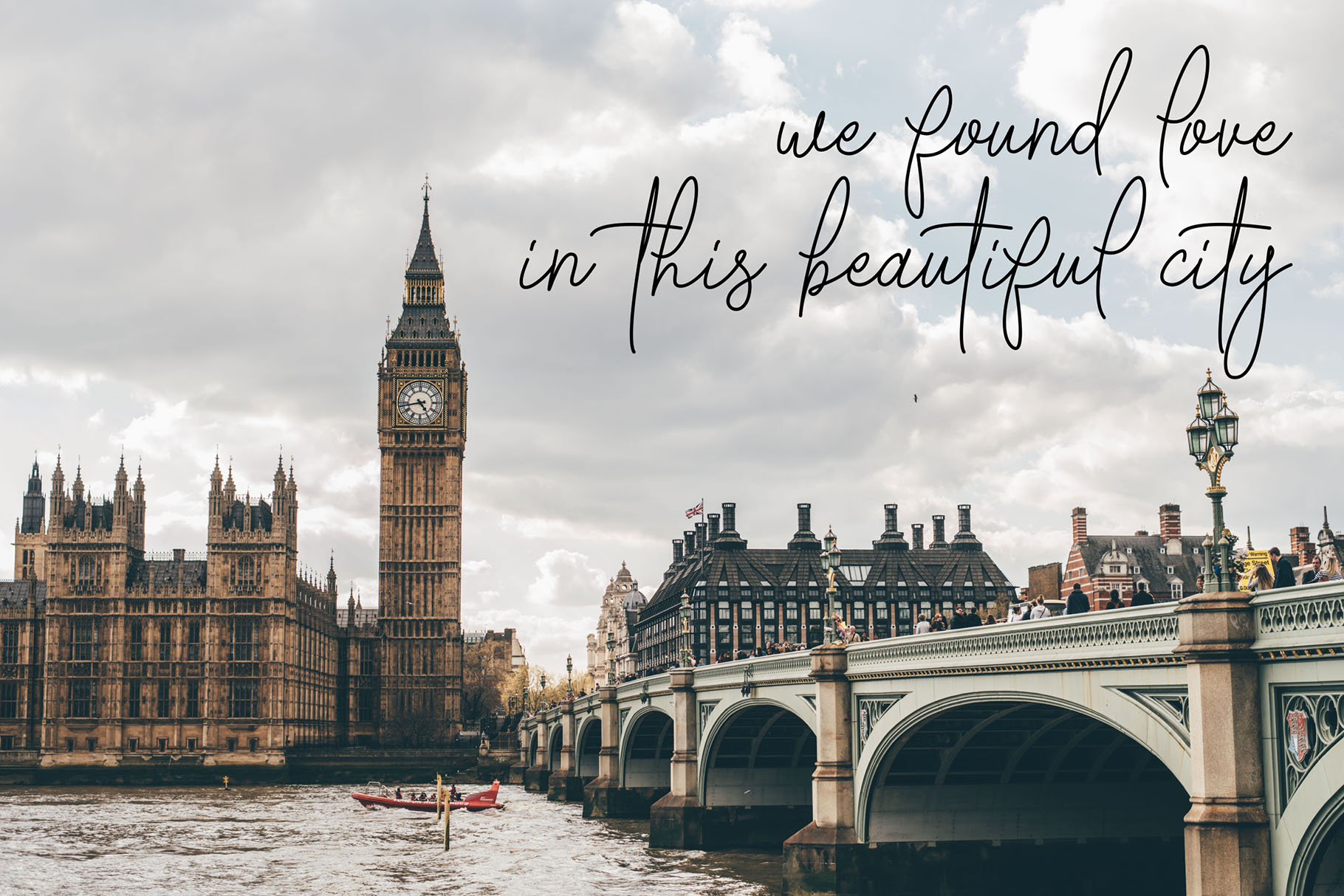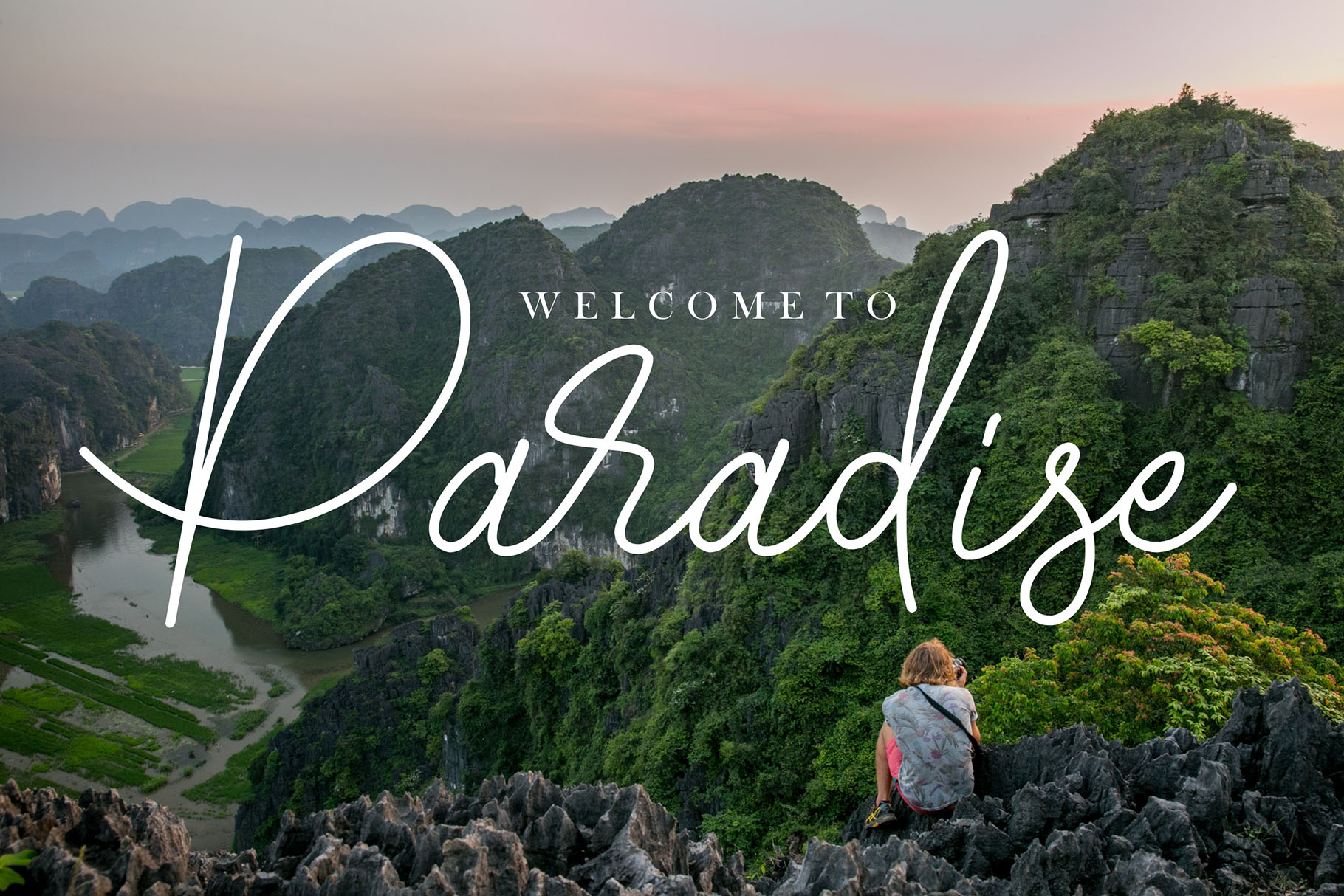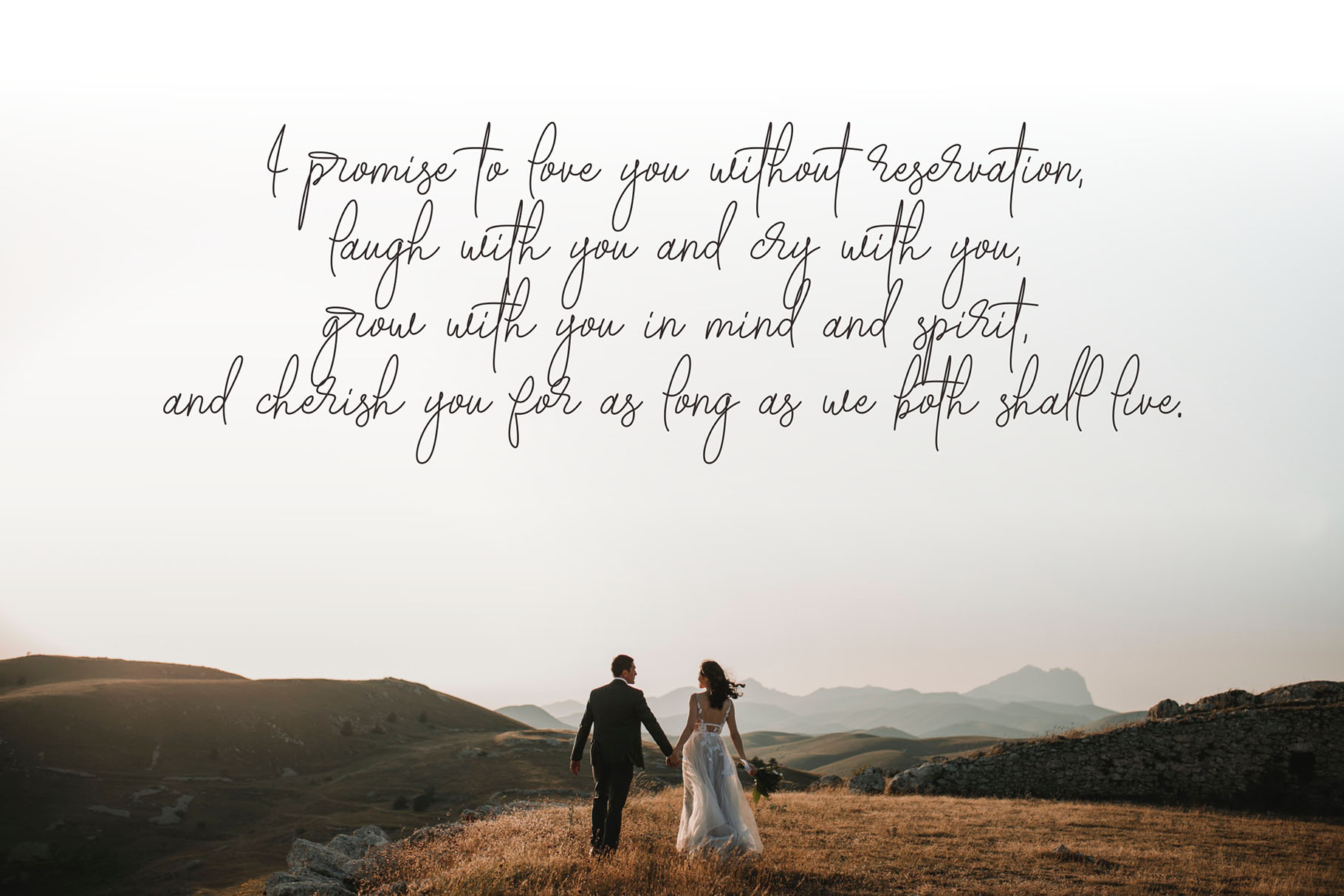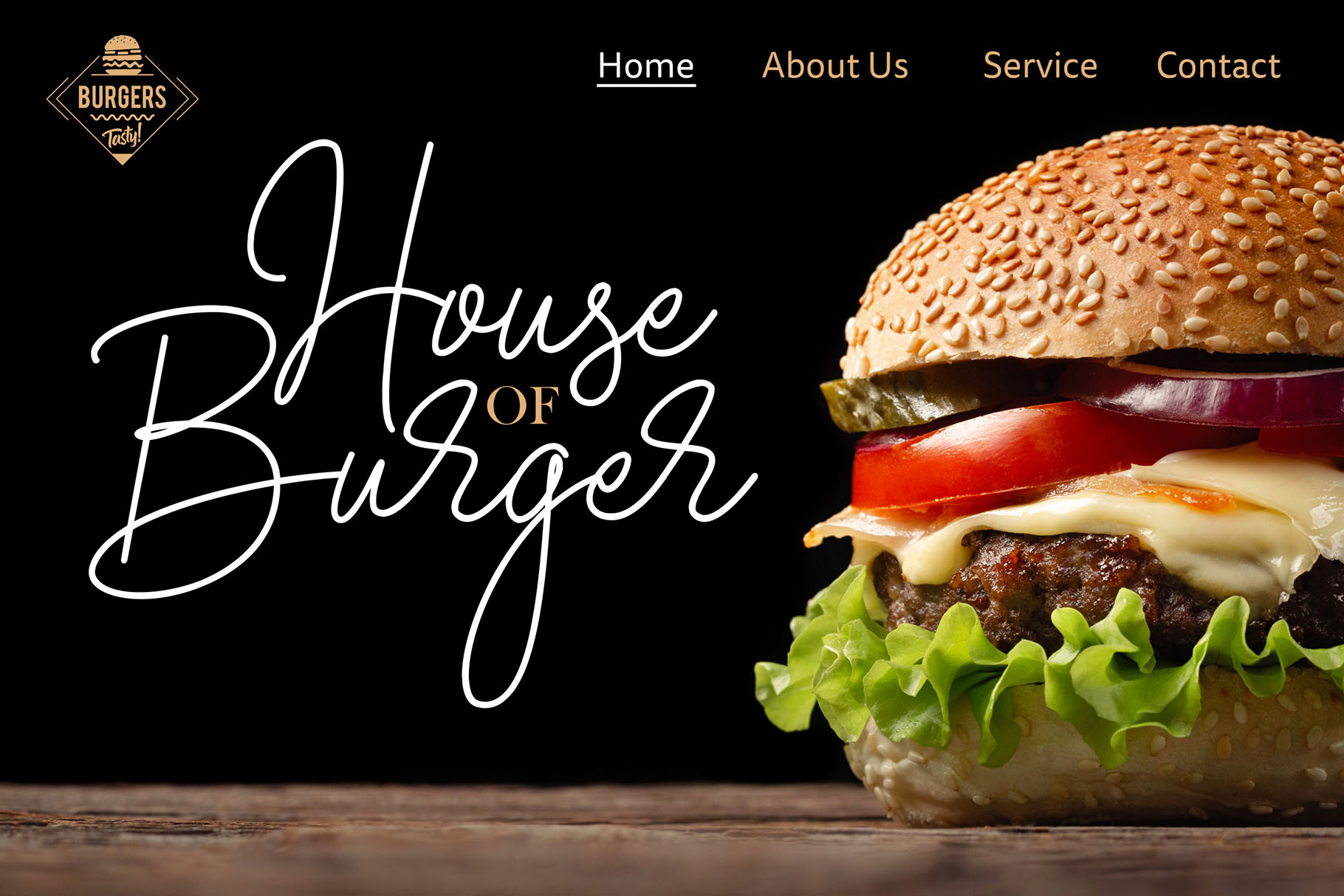
The Brotherside Signature Font for Modern Handwritten Design
The Brotherside Signature Font is a decorative signature typeface created for designers who want a handwritten lettering feeling with a natural, flowing personality. Its signature style gives your words a personal touch, making it a strong choice for branding, packaging, social media graphics, wedding invitations, quote posts, and modern visual identity work.
Designed with a smooth handwritten rhythm, The Brotherside Signature Font works beautifully when you want your text to feel expressive without looking too heavy. It brings a romantic, organic, and personal tone to your design, making it especially useful for brands that want to feel warm, human, and memorable.
This font is a practical choice for designers, brand owners, content creators, packaging designers, and creative studios who need a signature-style font that can support a wide range of visual projects. Whether you are designing a logo for a small business, packaging for an organic product, or an Instagram quote post with a personal mood, The Brotherside Signature Font helps create a polished handwritten impression.
The Brotherside Signature Font has a handwritten decorative style with a soft signature flow. Its letterforms feel personal and expressive, giving your words the look of custom lettering. The overall mood is elegant, romantic, and modern, making it suitable for designs that need personality without losing a clean visual direction.
The flow of the font makes it useful for larger text settings when you want the design to feel more expressive. It can bring warmth to simple layouts and add a graceful accent to brand visuals. This makes it especially relevant for lifestyle brands, organic product labels, wedding stationery, boutique packaging, personal logos, and social media content.
Because of its signature-inspired style, The Brotherside Signature Font can help a brand feel more human and approachable. It is not a plain script font. It carries a handwritten character that can make names, headlines, and short phrases feel more distinctive.
Best Use Cases
The Brotherside Signature Font is ideal for modern graphic design projects that need a handwritten lettering touch. It works well for brand marks, product packaging, labels, social media posts, quote graphics, wedding invitations, and romantic design layouts.
For organic product branding, this font can add a natural and personal voice to packaging. It can be used for skincare labels, handmade goods, candle branding, wellness products, botanical packaging, and boutique product visuals.
For wedding designs, The Brotherside Signature Font brings romantic vibes that suit invitations, save-the-date cards, name cards, thank-you cards, menus, and elegant event stationery. Its handwritten look gives the design a softer and more intimate feeling.
For social media content, this typeface is especially useful for Instagram quote posts, lifestyle captions, promotional graphics, personal branding posts, and creator visuals. It gives simple words more emotion and makes short messages feel more crafted.
Key Features
- Decorative signature font style
- Handwritten lettering feeling
- Ligature feature included
- Multilanguage support
- Suitable for branding, packaging, social media content, organic product branding, wedding invitations, and quote posts
- OpenType stylistic alternates can be accessed through compatible software
Designers love The Brotherside Signature Font because it gives projects a handwritten look without needing to create custom lettering from scratch. It helps turn simple words into expressive visual elements, making it useful for brand names, short taglines, packaging accents, quote graphics, and elegant stationery.
For brand designers, the font can add warmth to logo concepts and packaging layouts. For content creators, it can make Instagram graphics and quote posts feel more personal. For wedding designers, it offers a romantic handwritten mood that fits invitation suites and event details.